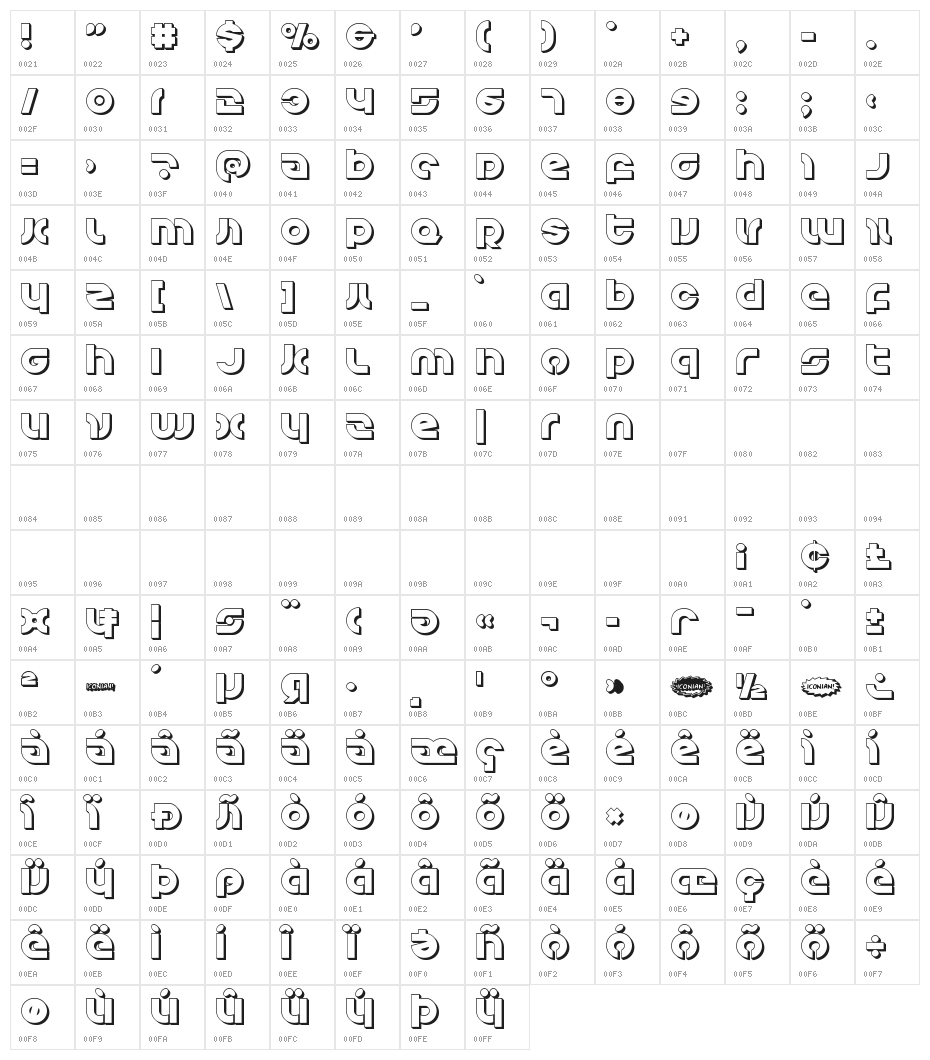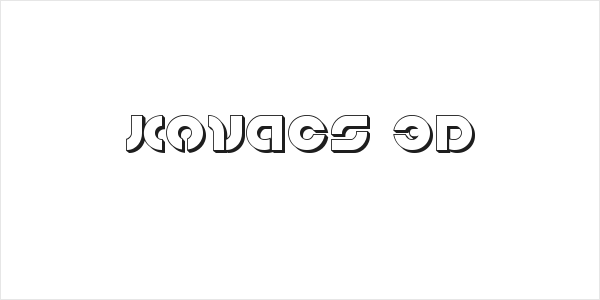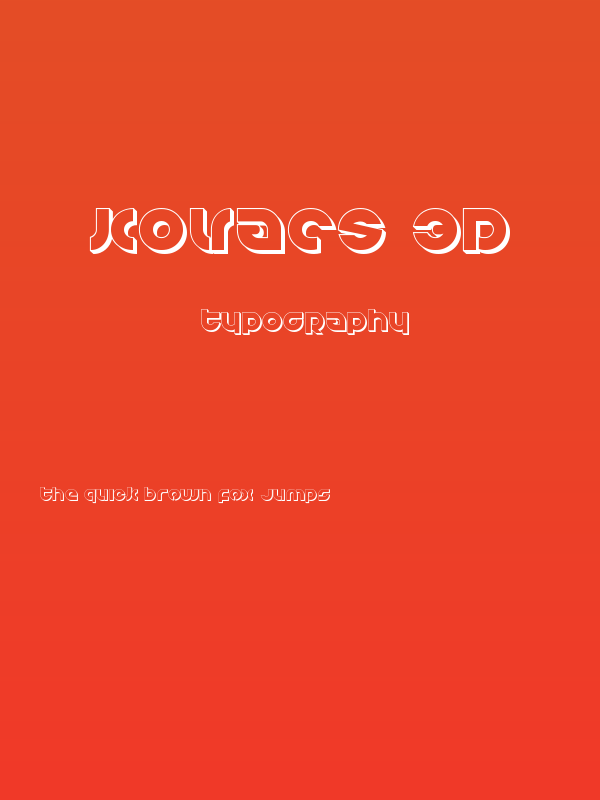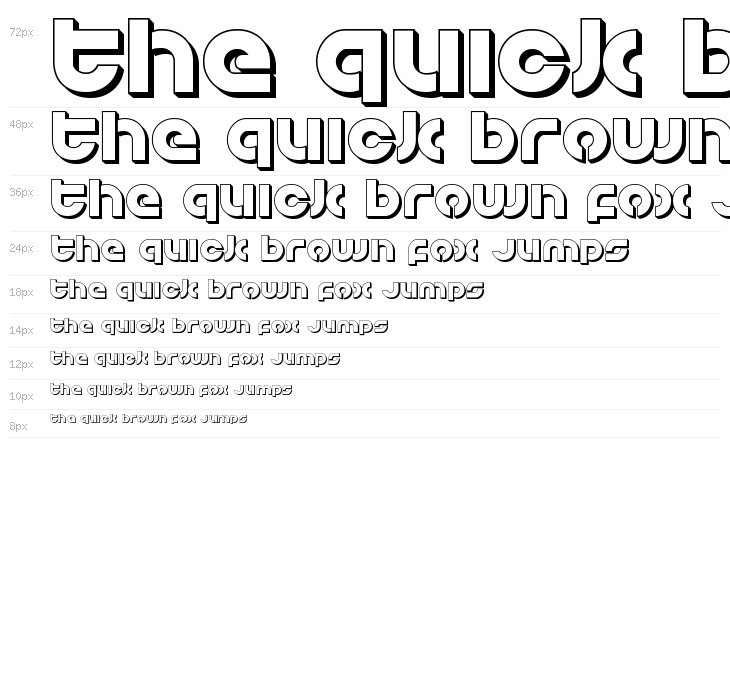
Kovacs 3D Font
Kovacs 3D Description
This font features a bold, three-dimensional appearance with a futuristic and geometric design. The characters are outlined with a shadow effect, giving them a distinct depth and a modern, tech-inspired look. The font maintains a consistent thickness throughout each character, enhancing its bold and impactful presence. The rounded edges and smooth curves contribute to its sleek and polished aesthetic, making it suitable for contemporary design projects. The numerals and special characters are designed with the same attention to detail, ensuring uniformity across all glyphs.
| Proposed Projects | Ideal for technology branding, sci-fi posters, video game titles, and modern digital interfaces. |